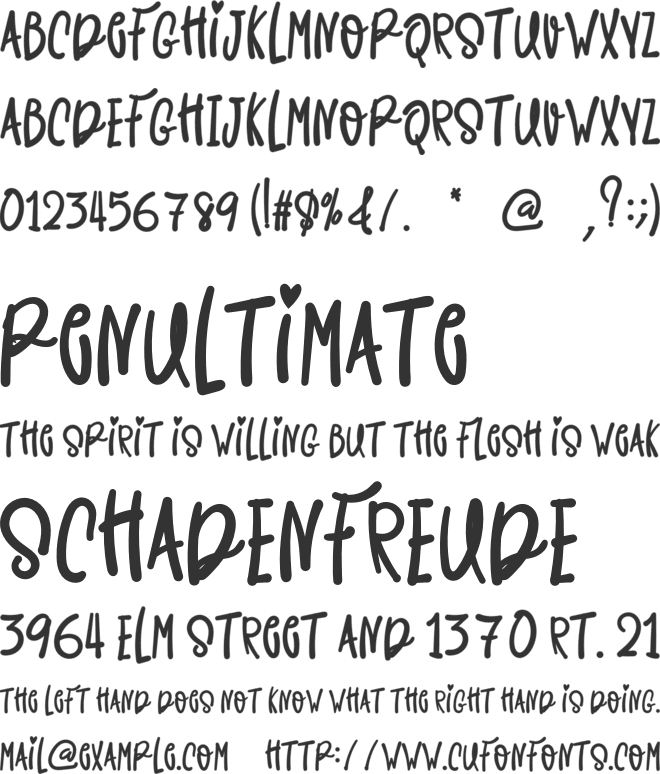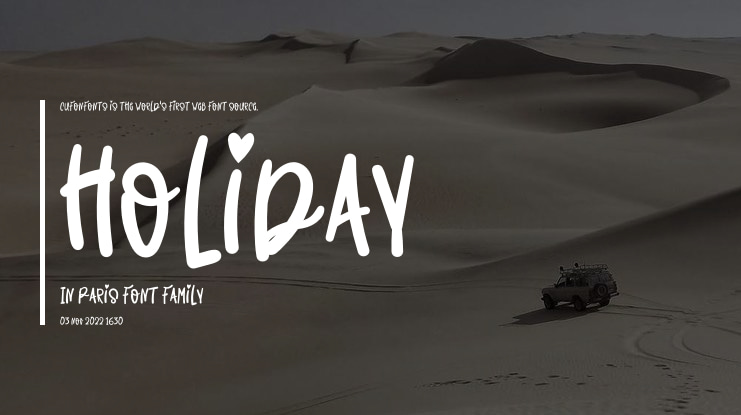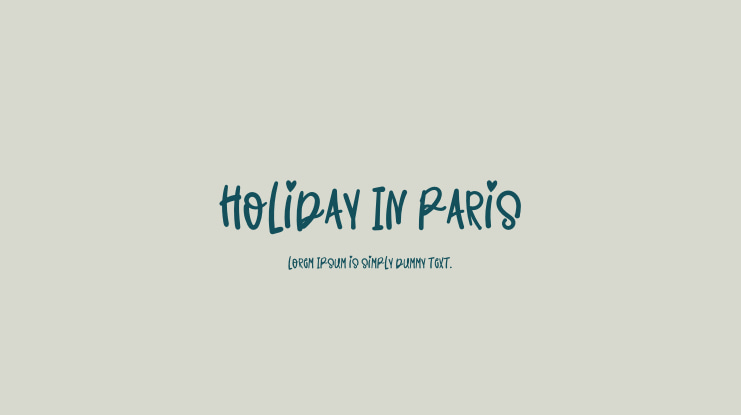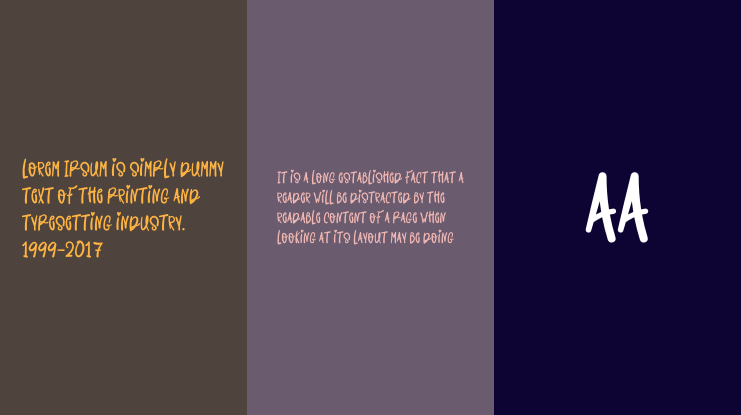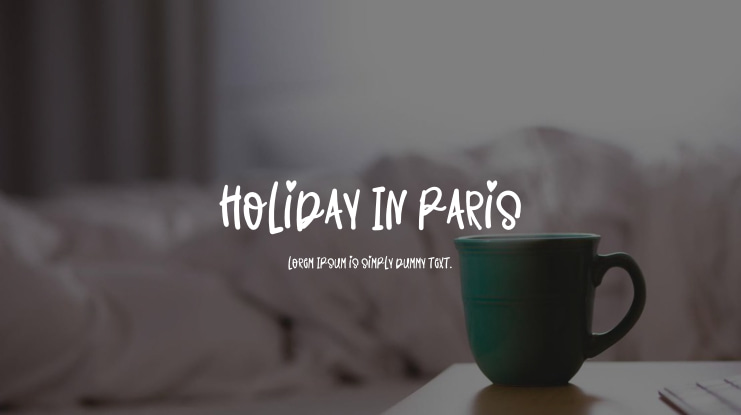
Holiday In Paris Font Family
Ake Thanantreesak
Holiday in Paris is duo font, friendly, informal script font. No matter the topic, this font will be an incredible asset to your fonts’ library, as it has the potential to elevate any creation.